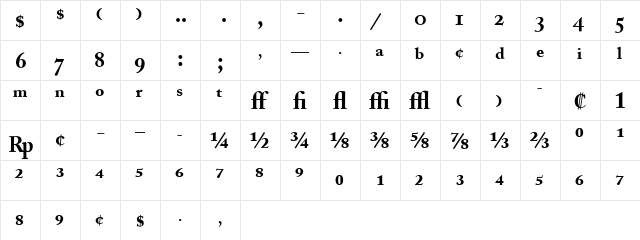
ACaslonExp Bold Regular
Design Context for ACaslonExp Bold Typeface
ACaslonExp Bold offers clean, dependable letterforms without strong stylistic allegiance, making it a practical choice for designers who need flexibility. The heavy weight commands attention and anchors typographic hierarchies.